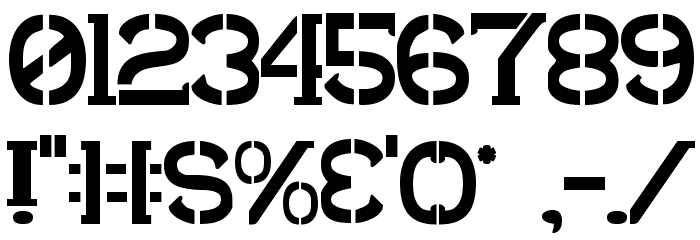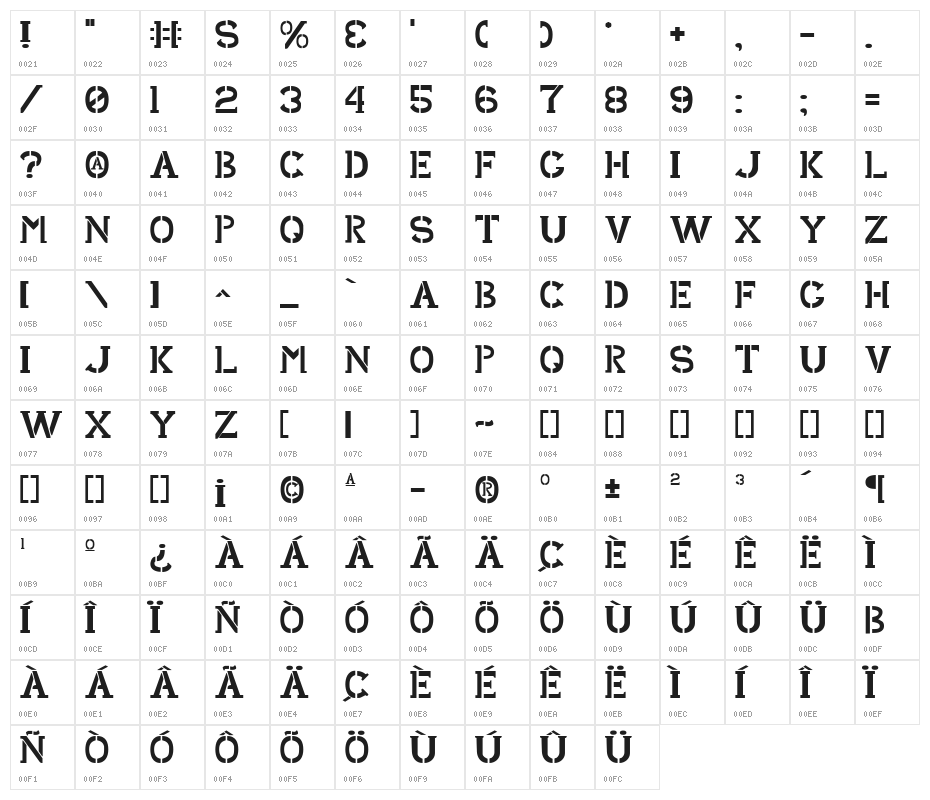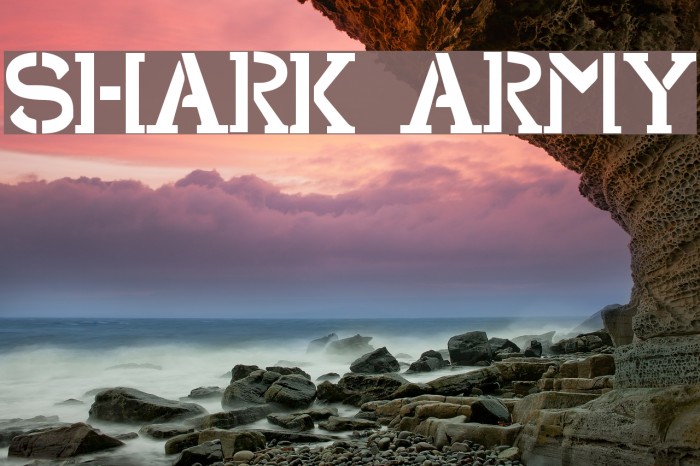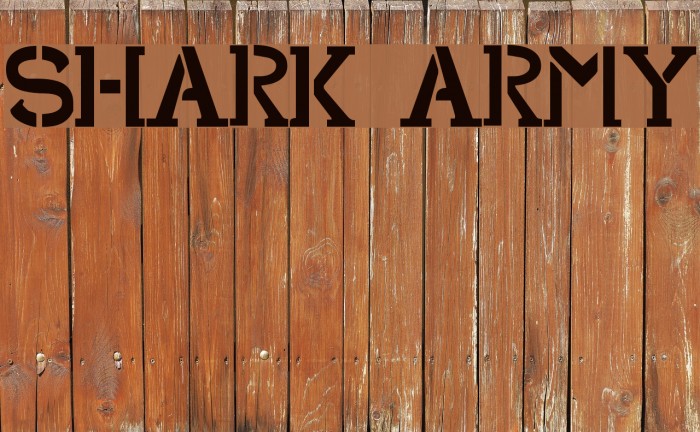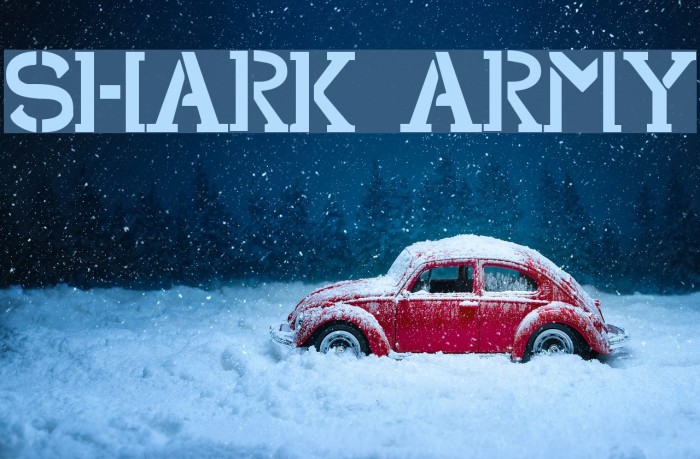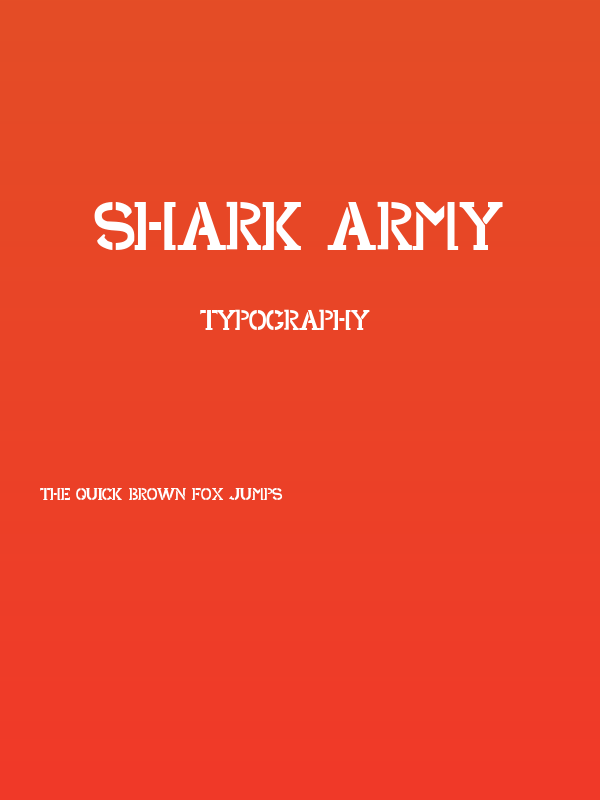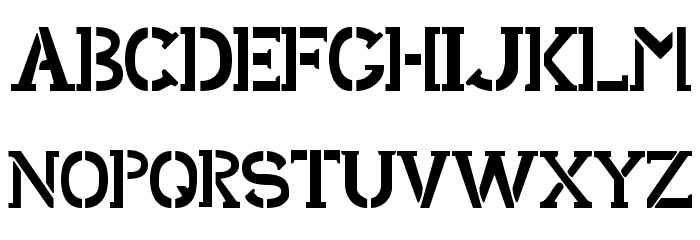
Shark Army Font
Shark Army Description
This font features a bold and striking design with a stencil-like appearance. The characters are constructed with sharp, angular cuts and geometric shapes, giving it a modern and industrial feel. The uppercase letters are particularly prominent, with a strong presence that commands attention. The numbers and special characters maintain the same bold style, ensuring consistency throughout. This font is ideal for projects that require a strong visual impact, such as posters, logos, and branding materials. Its unique style makes it stand out, while the clear and legible design ensures readability.
| Proposed Projects | Ideal for posters, logos, branding materials, and any project needing a strong visual impact. |